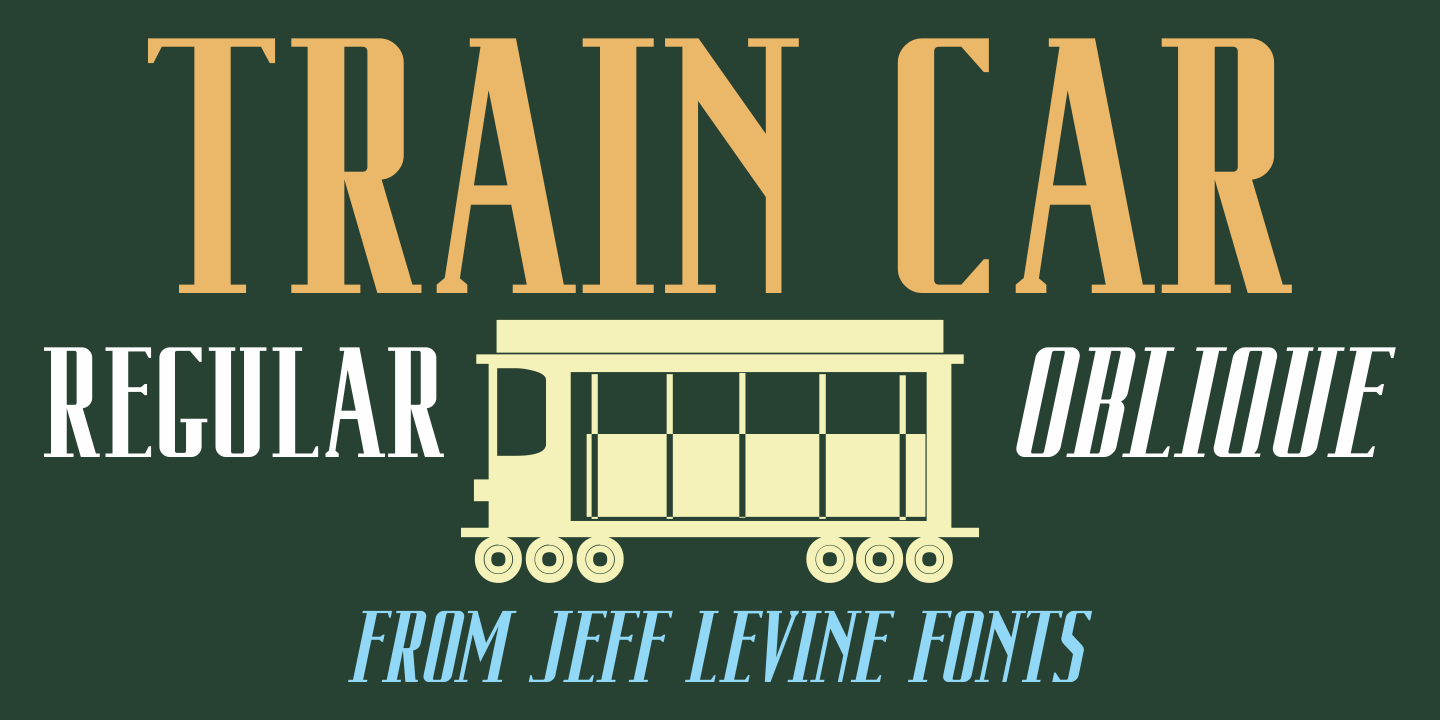
Looking for a vintage-inspired typeface that brings back the charm of early 20th-century signage? Train Car JNL Font Free Download is perfect for retro branding, nostalgic packaging, classic poster designs, and signage that needs an old-timey flair. Its bold, condensed lettering reflects the character of traditional railroad car typography.
Whether you’re designing themed event materials, vintage-style branding, or heritage product labels, Train Car JNL Font Free Download adds historical depth and a touch of Americana to your typography.